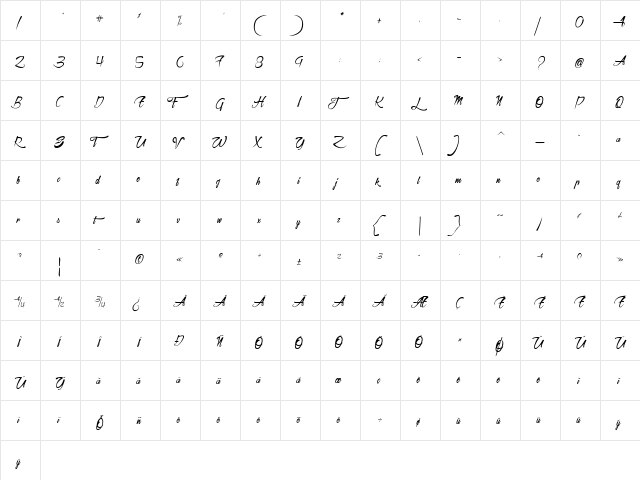
Atelier du Machiniste Italic
Design Context for Atelier du Machiniste Typeface
Atelier du Machiniste takes a measured approach to typography — its balanced proportions and neutral character make it a reliable workhorse for both digital and print work. The slanted form adds forward momentum and visual energy.